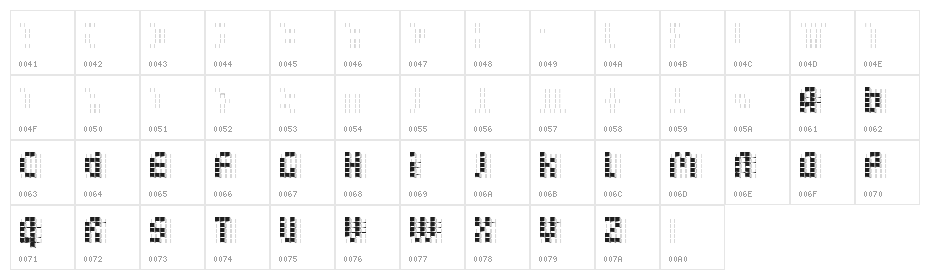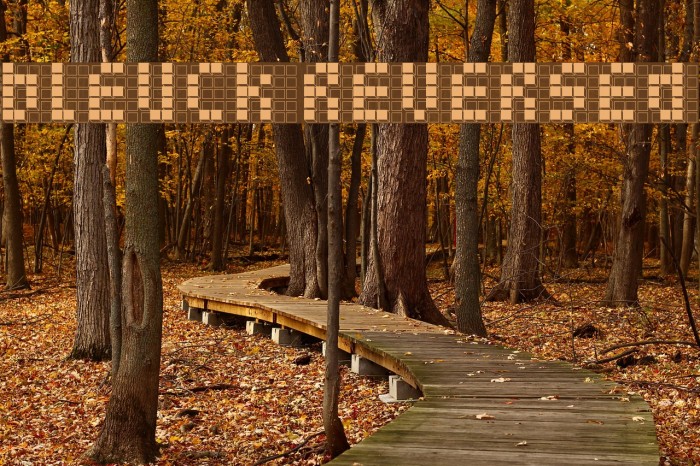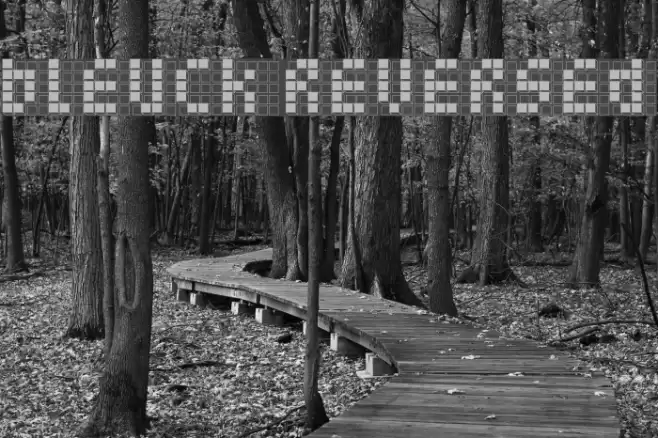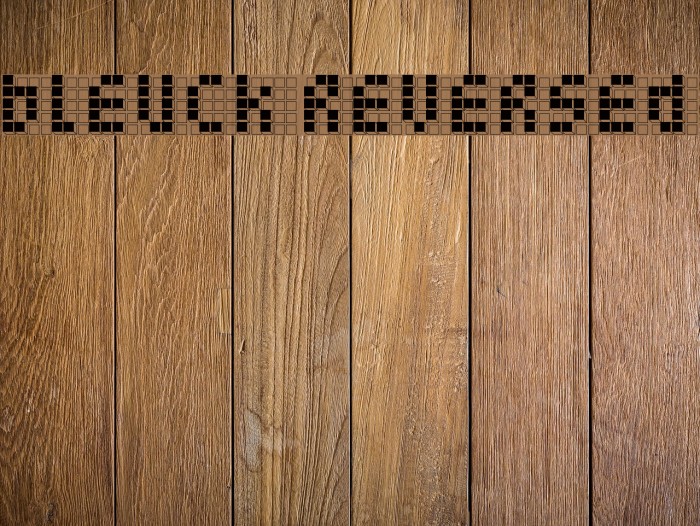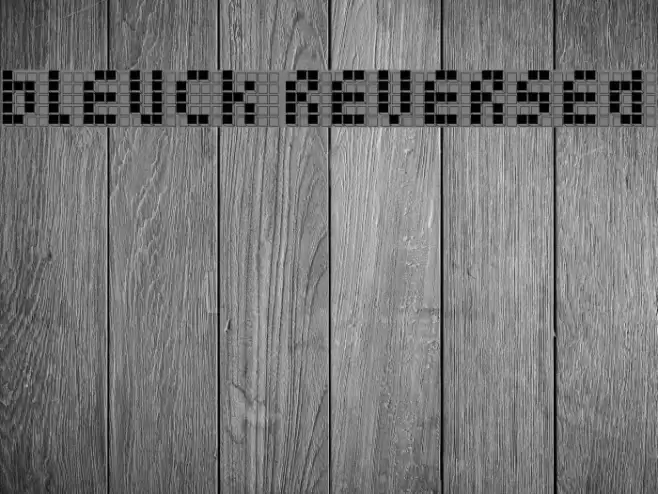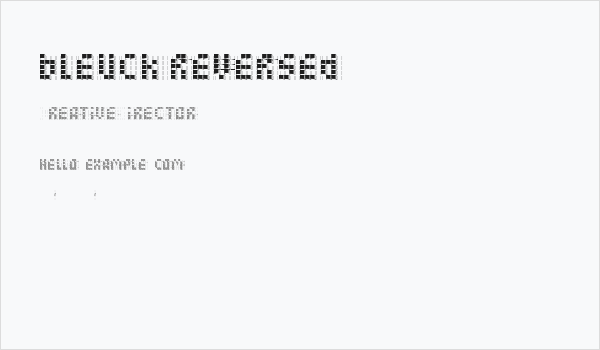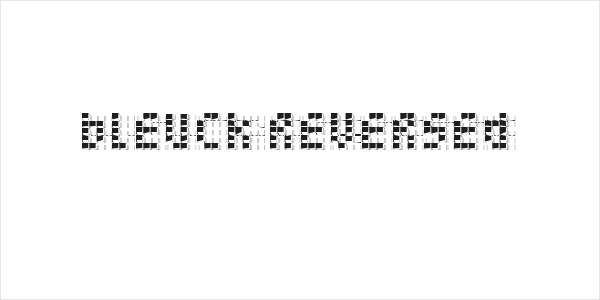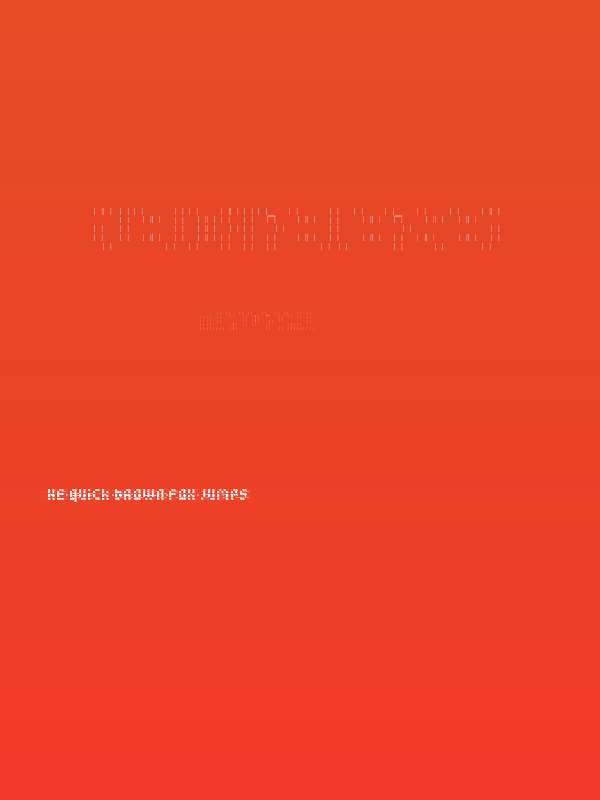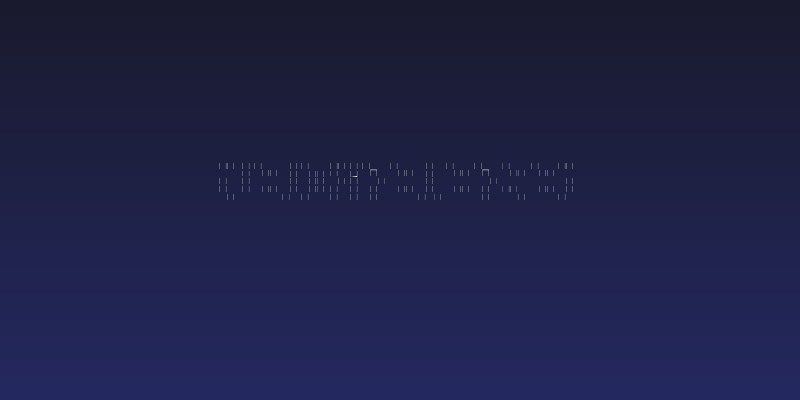
bleuck reversed Font
bleuck reversed Description
This font features a unique pixelated design, reminiscent of early digital displays or retro video games. Each character is constructed from a grid of squares, creating a blocky and geometric appearance. The uppercase letters are bold and prominent, while the lowercase letters maintain the same pixelated style but with a slightly reduced height. The numerals and special characters follow the same design principles, ensuring consistency across the entire character set. This font's distinct style makes it stand out, offering a nostalgic yet modern twist on digital typography.
| Proposed Projects | Ideal for retro-themed designs, video game graphics, digital art projects, and any creative work seeking a nostalgic digital aesthetic. |